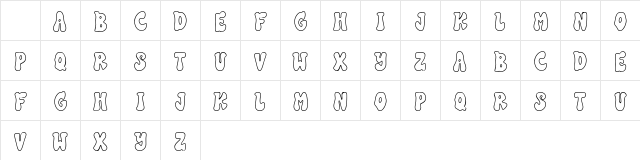
Complete SEVENTIES GROOVY LINE Regular glyph index. Displaying only characters natively supported by SEVENTIES GROOVY LINE Regular font.
SEVENTIES GROOVY LINE is a composed and adaptable typeface that performs quietly and consistently across a wide range of design contexts.
Pro Tip: Use SEVENTIES GROOVY LINE in both headline and body roles to test its range before committing to a single application.